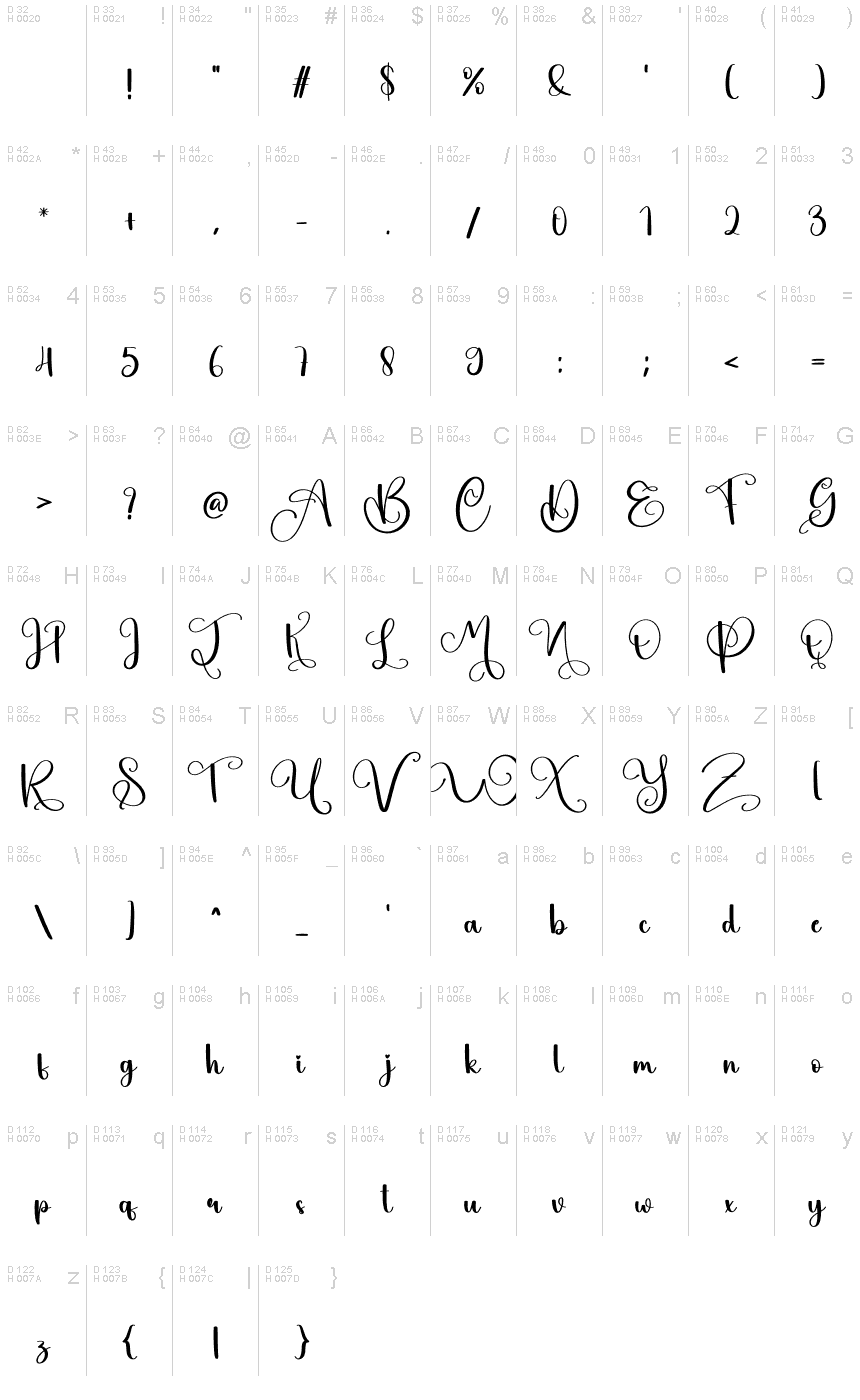
Nature
Nature, a captivating calligraphy font created by scratchones, exudes grace and elegance with its semi-light weight. Its fluid strokes and intricate curves make it perfect for a range of projects. Embrace its organic beauty to elevate wedding invitations, greeting cards, and floral-themed designs. Capture the essence of nature in logos for eco-friendly brands or create stunning packaging for natural skincare products. With Nature's delicate yet impactful style, bring a touch of sophistication to book covers, inspirational quotes, and blog headers. Let this enchanting font breathe life into your creative endeavors.
The latest style letters are perfect for wall displays, wedding invitations, social media post logos, advertisements, product packaging, product designs, labels, photography, watermarks, invitations, stationery, and any project that requires taste handwriting.